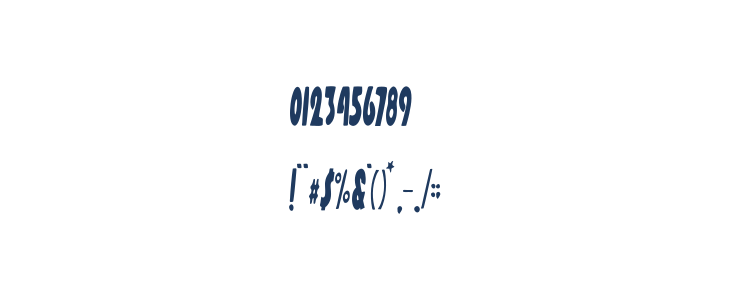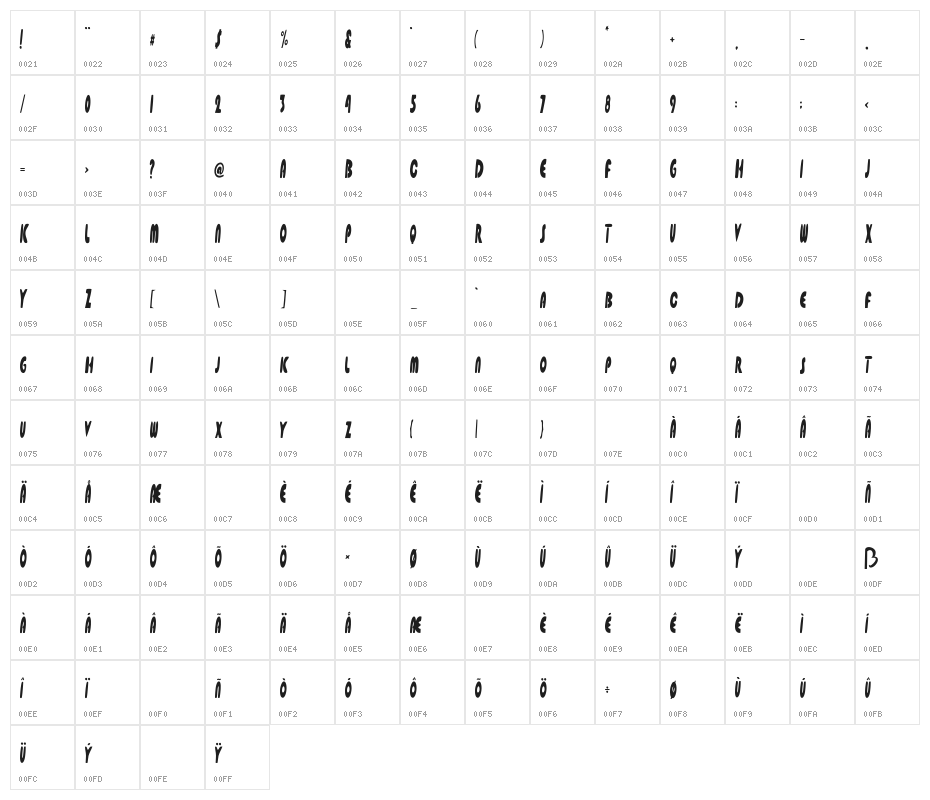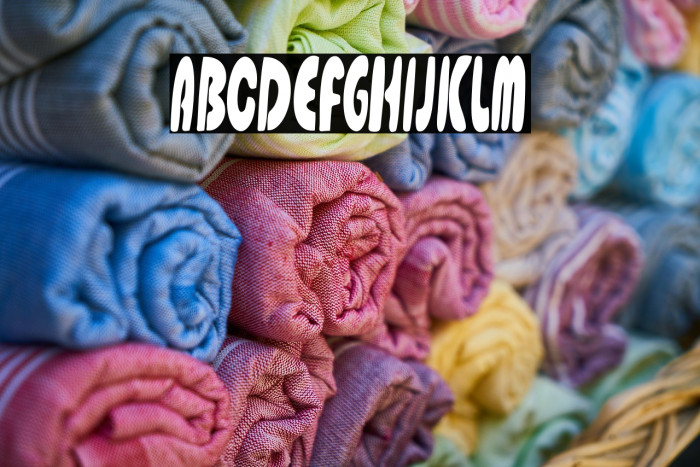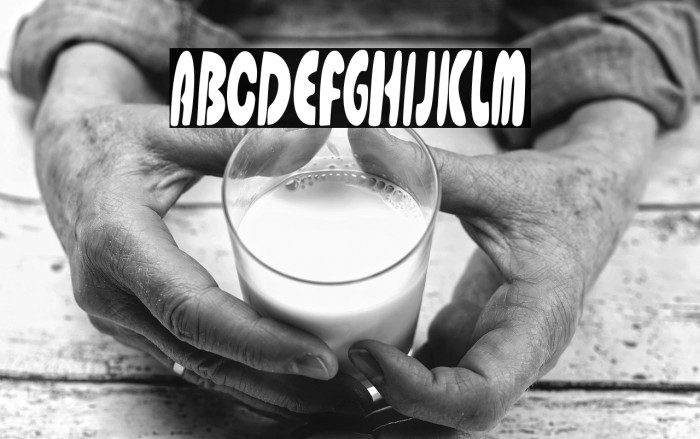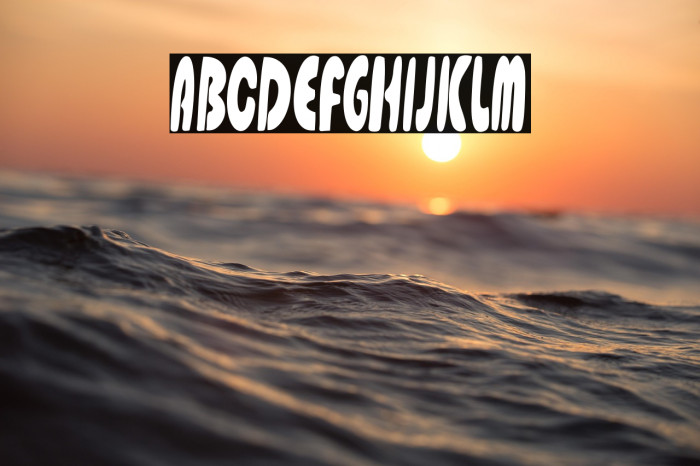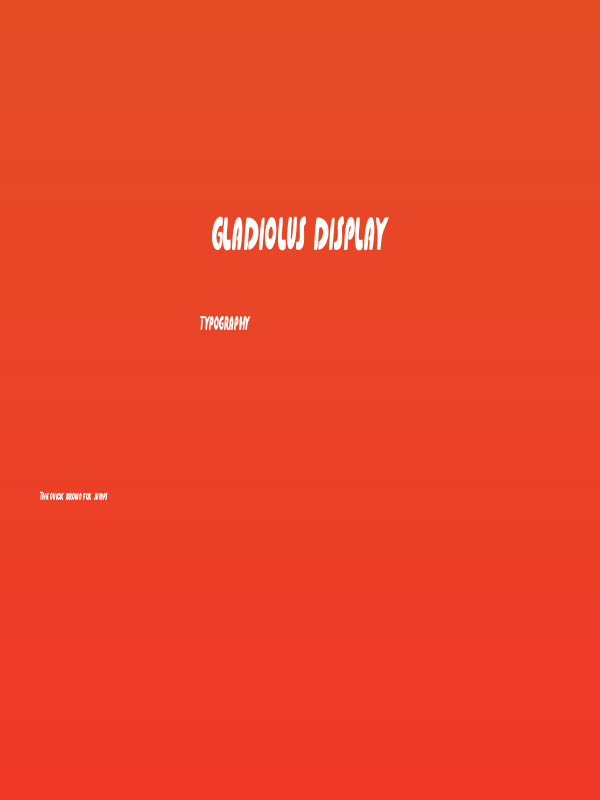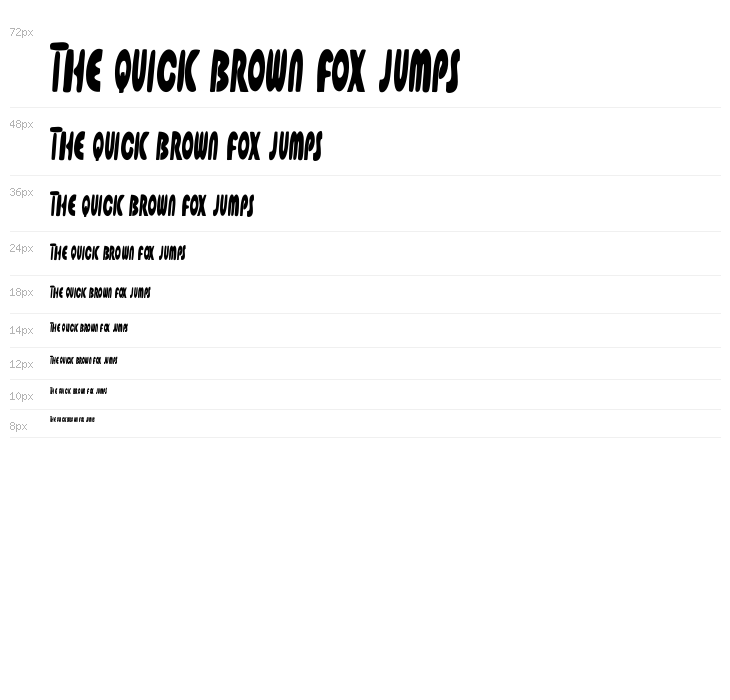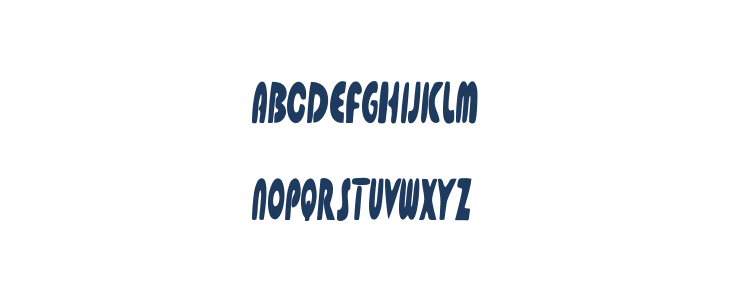
Gladiolus Display Font
Gladiolus Display Description
This font features a bold and dynamic style with thick, rounded strokes that give it a strong presence. The characters are slightly condensed, enhancing its compact and impactful appearance. The uppercase letters have a consistent height, while the lowercase letters maintain a similar weight, creating a harmonious balance. The numbers are bold and easily readable, matching the overall aesthetic. Special characters are designed with the same boldness, ensuring uniformity across all glyphs. This font's playful yet assertive design makes it suitable for attention-grabbing headlines and creative projects.
| Proposed Projects | Ideal for posters, logos, branding, and any project requiring a strong visual impact. |